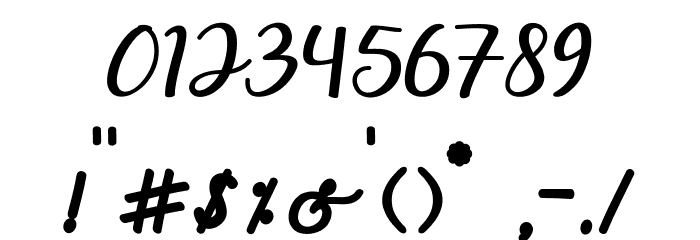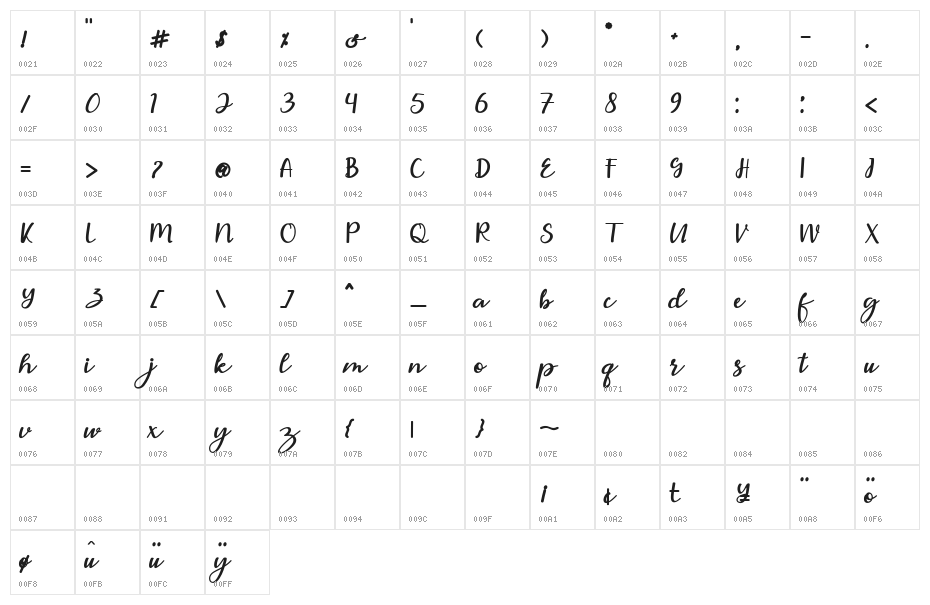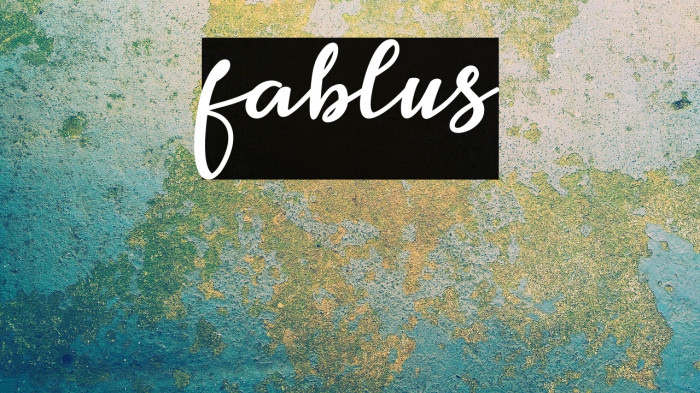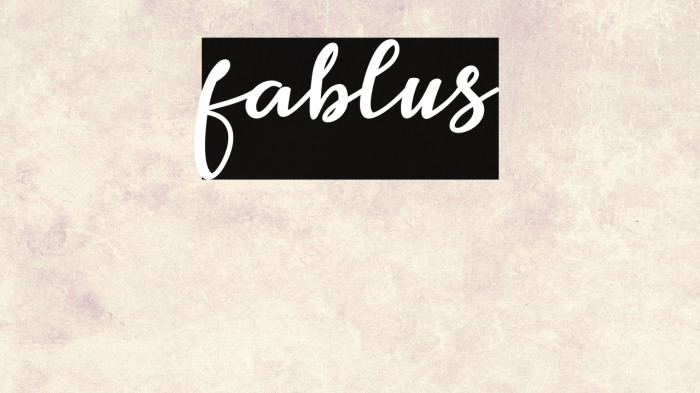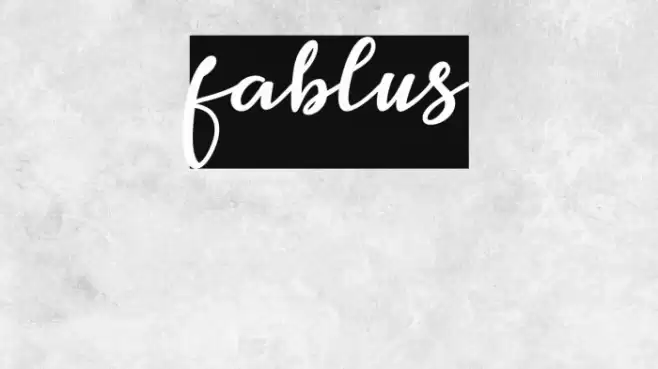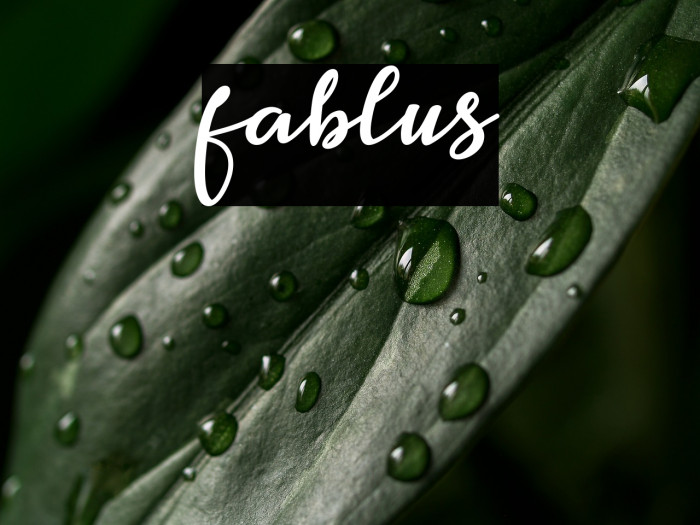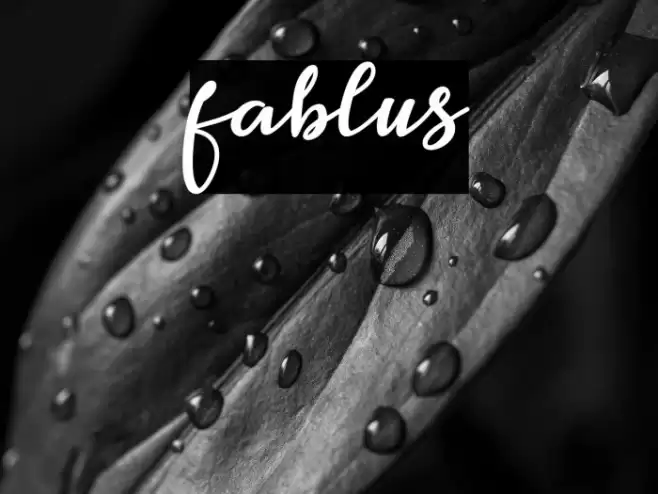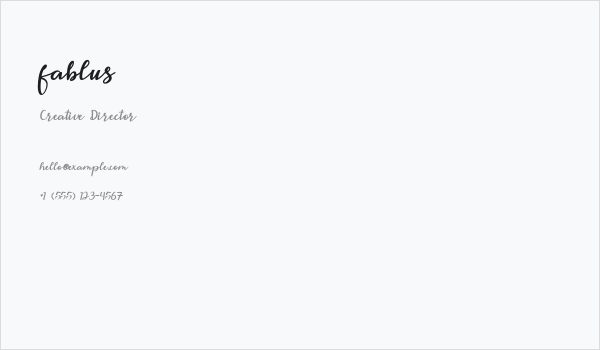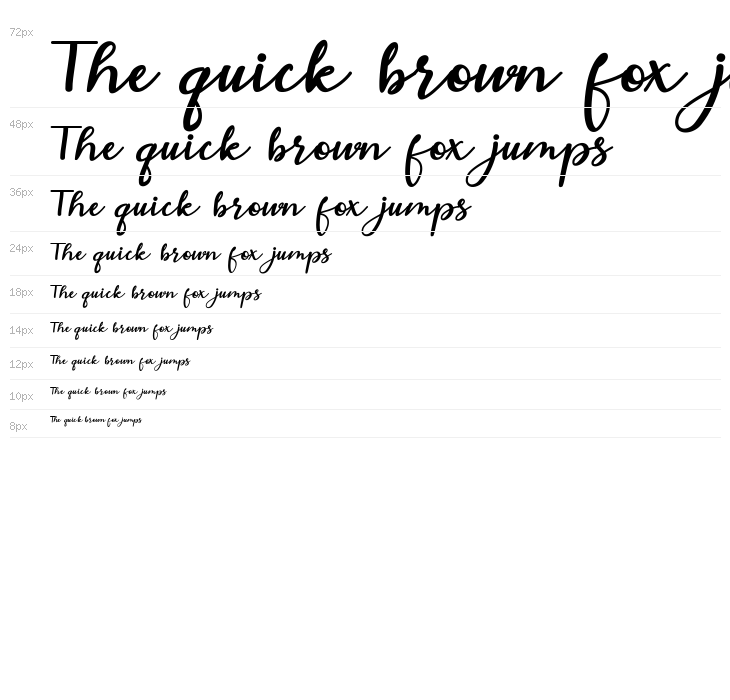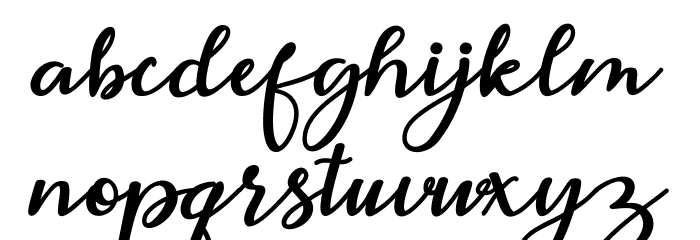
fablus Font
fablus Description
This font features a lively and flowing script style that combines elegance with a touch of playfulness. The uppercase letters are bold and slightly slanted, giving a sense of movement and dynamism. The lowercase letters maintain a consistent fluidity, with smooth curves and loops that enhance readability while adding a personal touch. The numerals are well-proportioned, complementing the overall aesthetic. Special characters are thoughtfully designed, maintaining the font's cohesive style. This font is perfect for projects that require a personal, handwritten feel, such as invitations, greeting cards, or branding materials.
| Proposed Projects | Ideal for invitations, greeting cards, branding, and personal projects. |